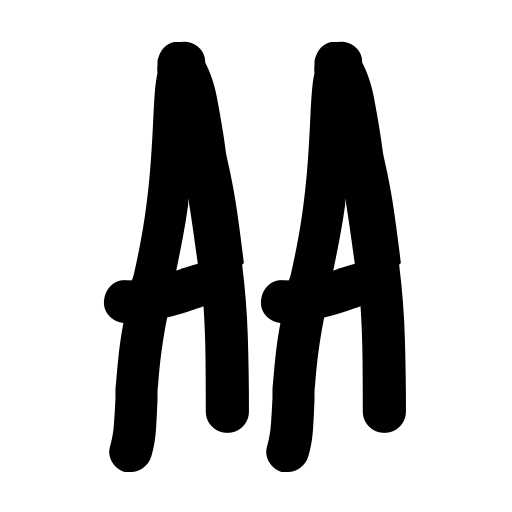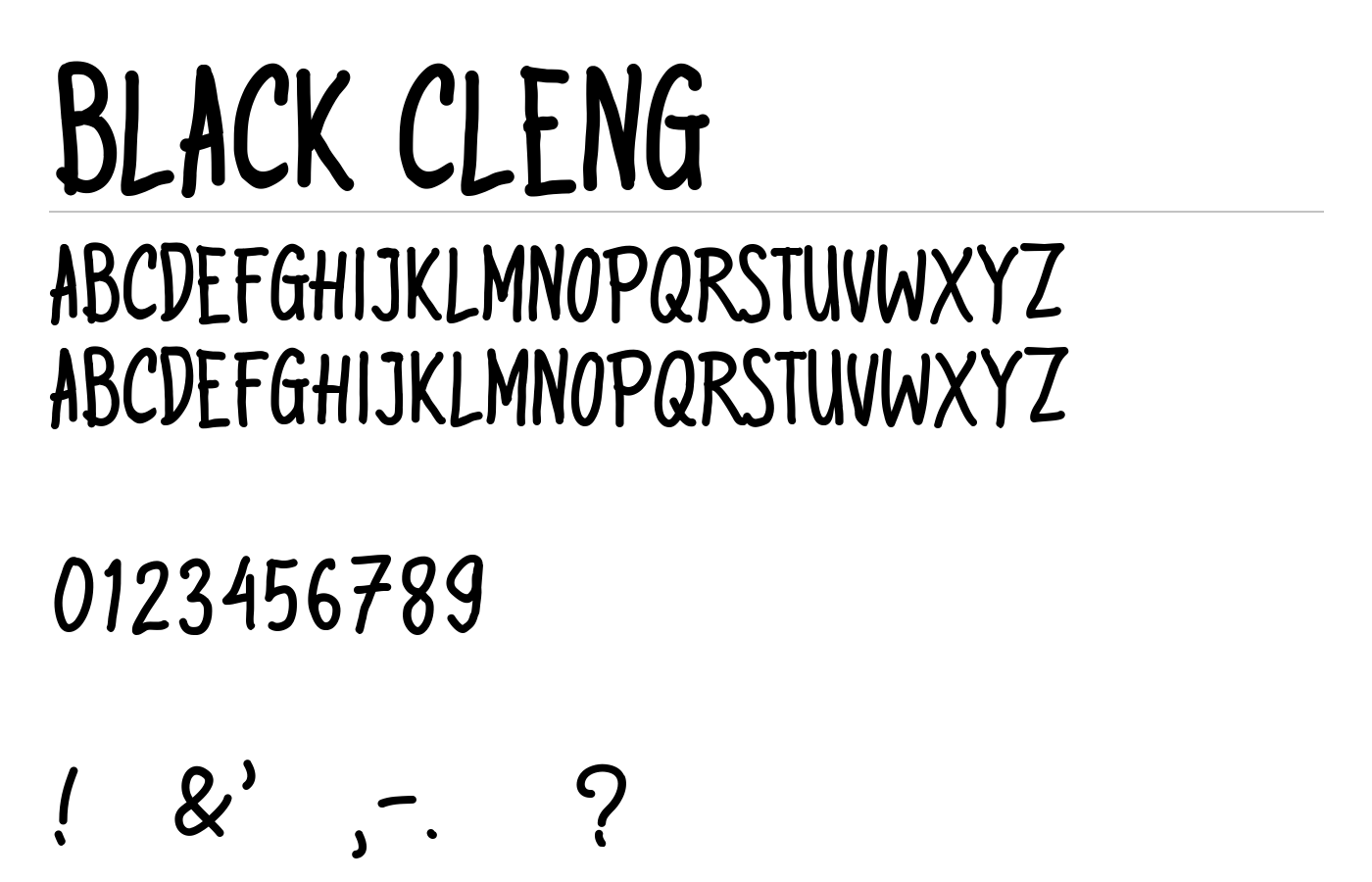
Black Cleng is a playful and casual handwritten sans serif font with a light to regular weight and a slightly condensed, tall appearance. Its irregular stroke endings and lively letterforms give it a friendly, informal feel, making it perfect for creative projects, children’s designs, and relaxed branding. This font works well for headlines and playful logos where a personal, approachable touch is desired.
Black Cleng Font
About Black Cleng Font
| Font family | Black Cleng Font |
| Designer | Steven Joss |